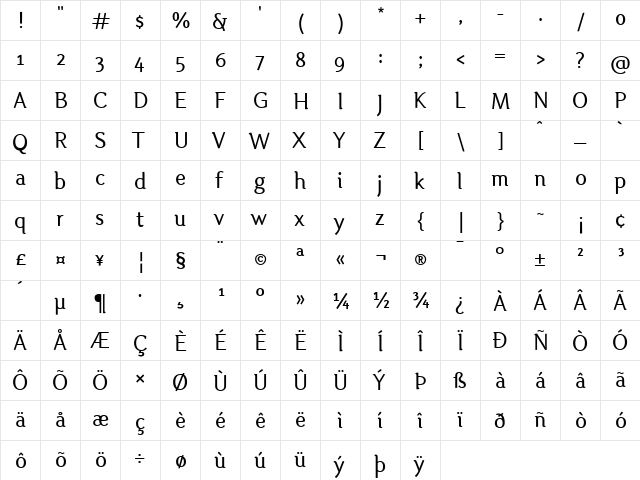
Otari Regular
| Foundry | Travis Kochel |
| Designer | Travis Kochel |
Design Context for Otari Typeface
Otari offers clean, dependable letterforms without strong stylistic allegiance, making it a practical choice for designers who need flexibility.